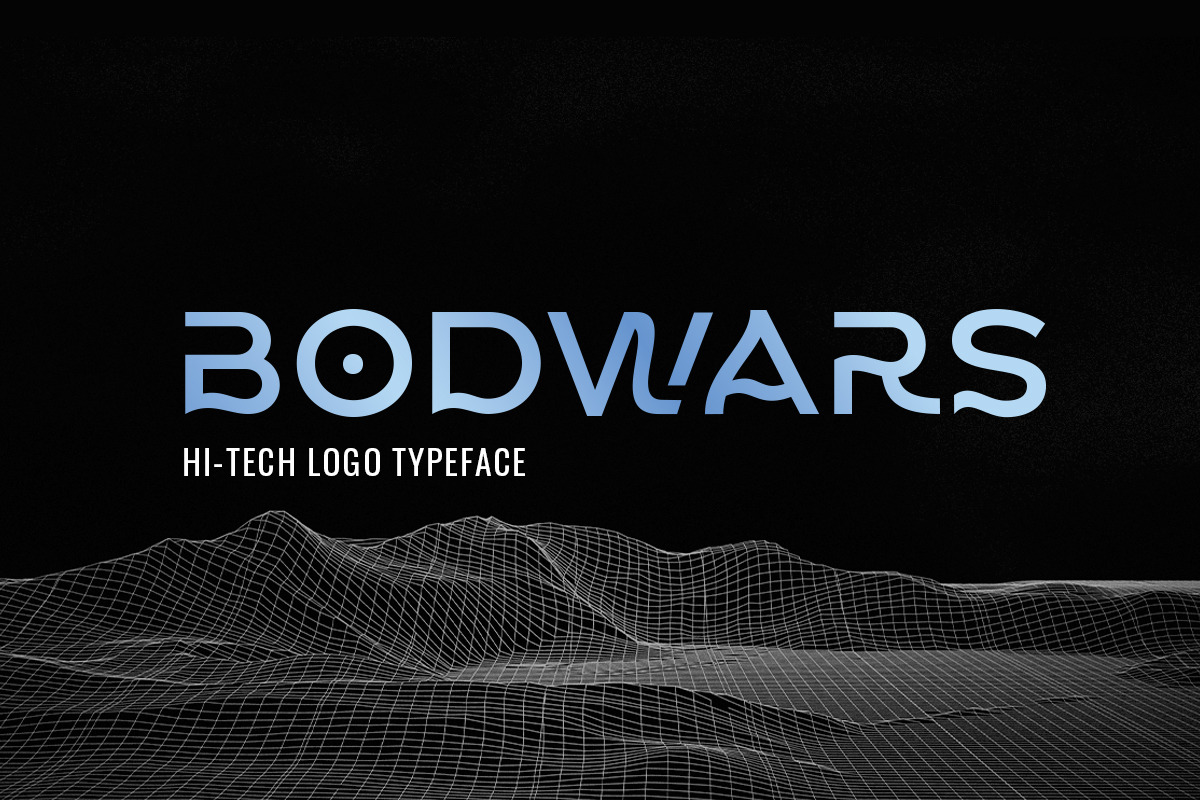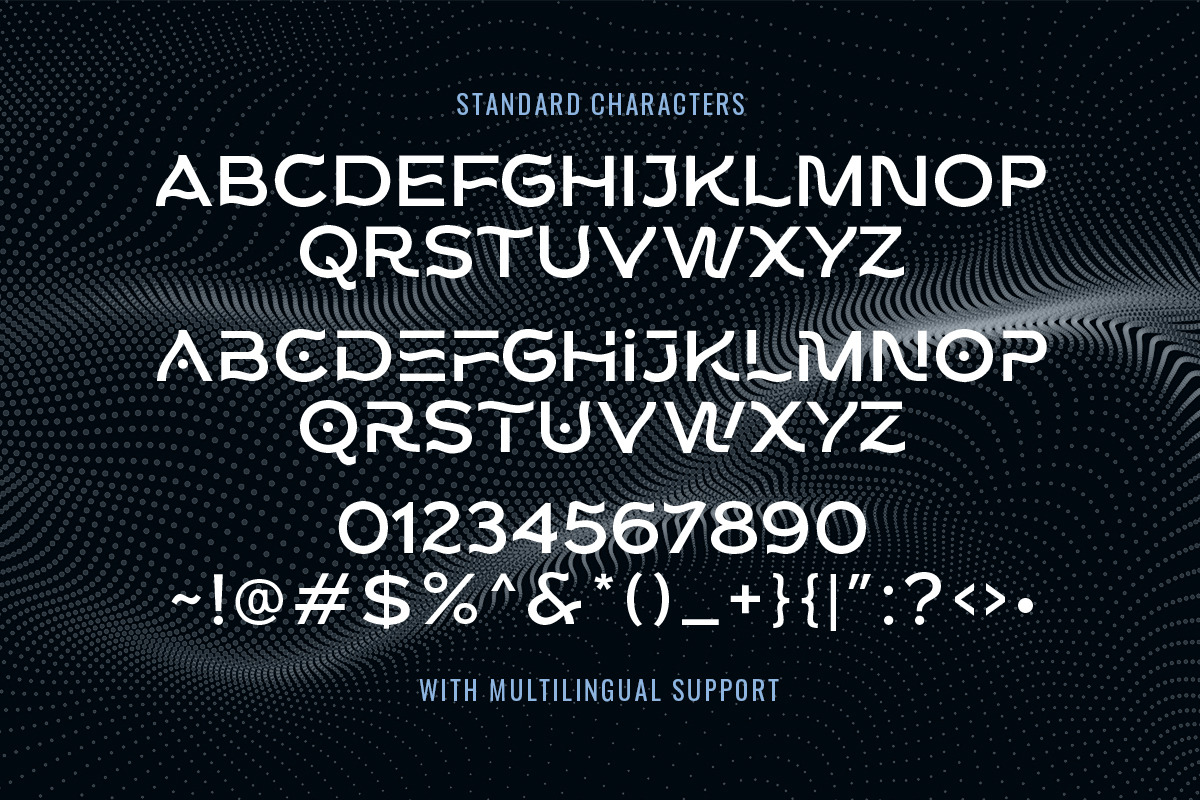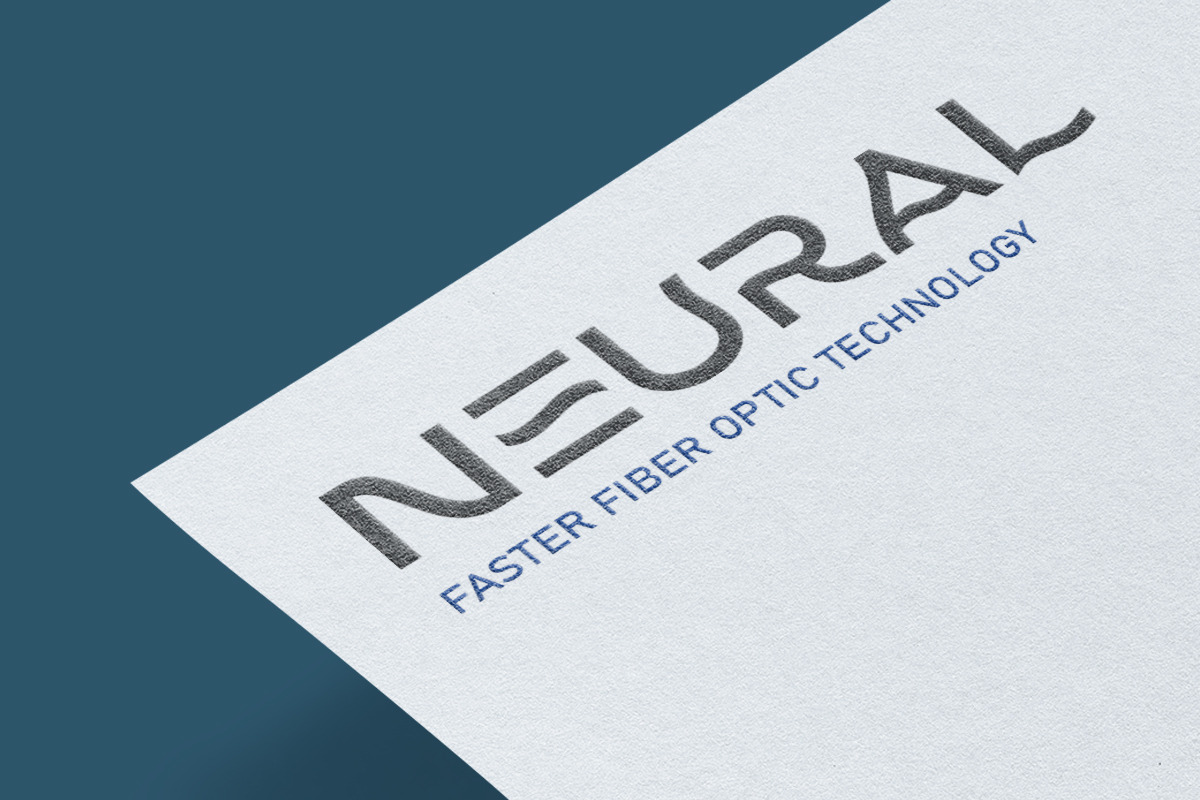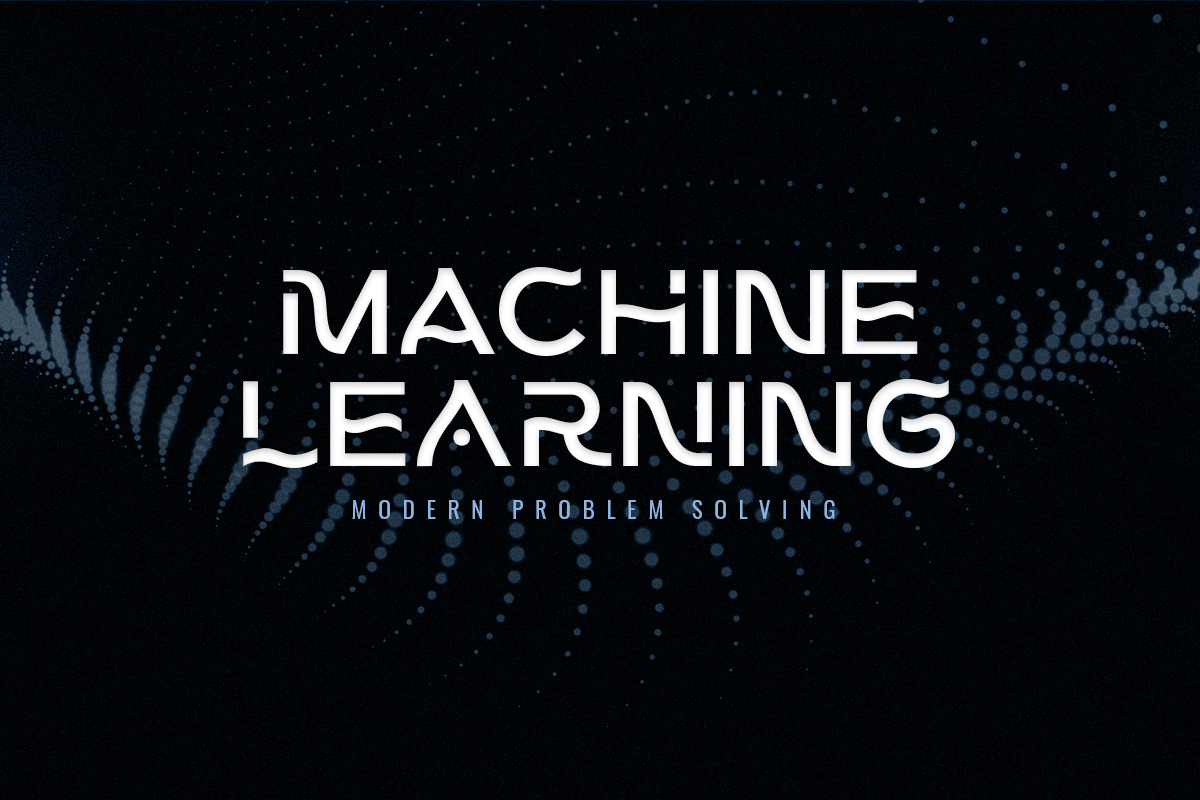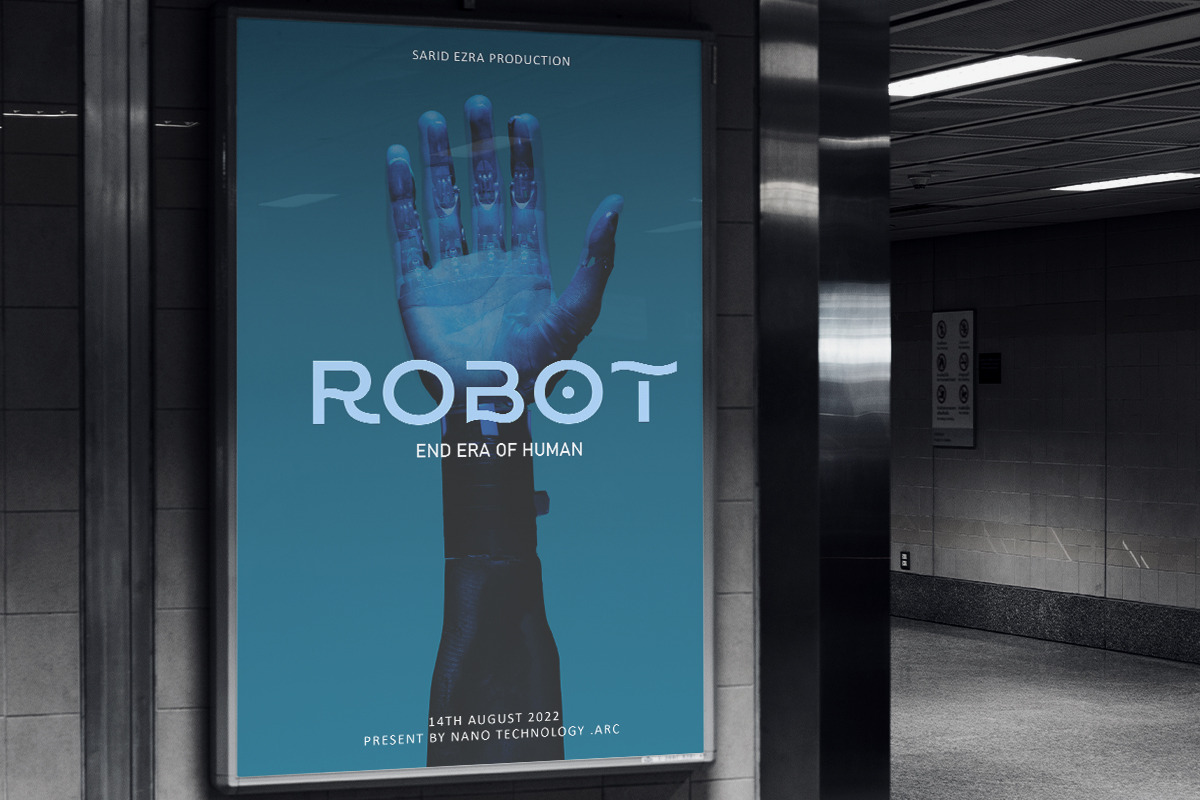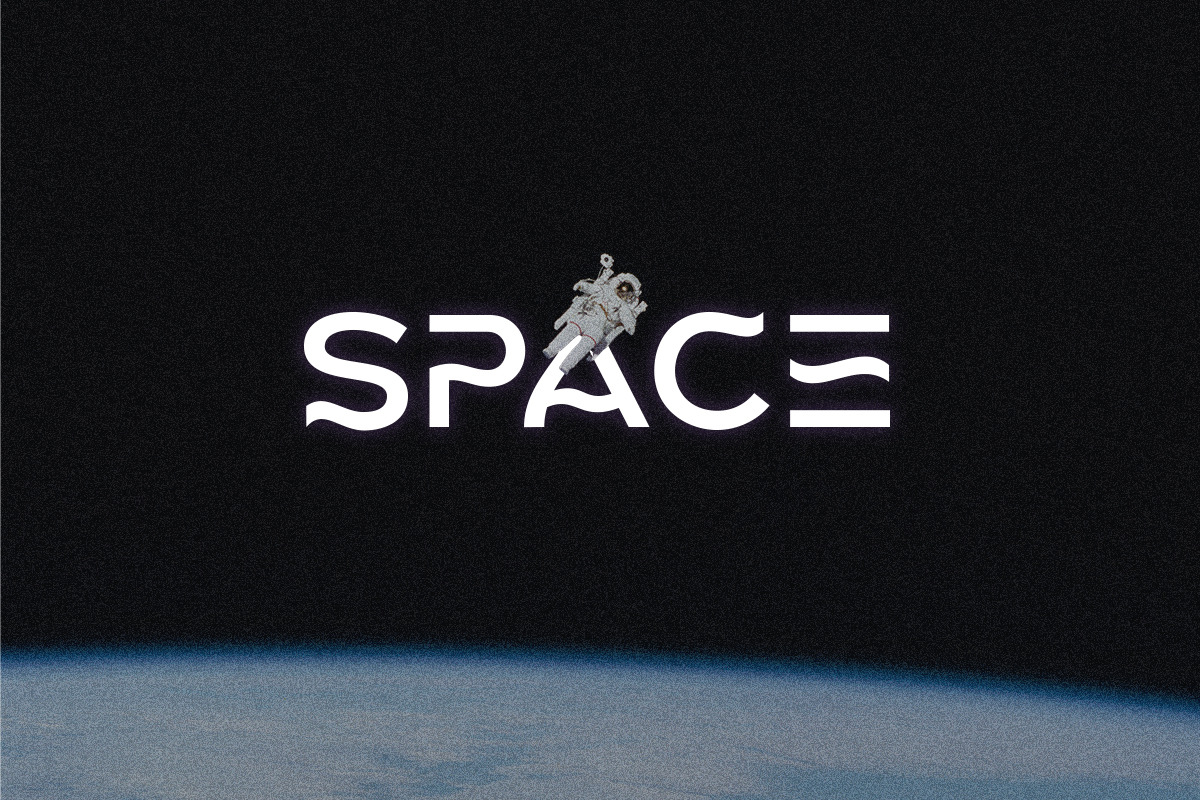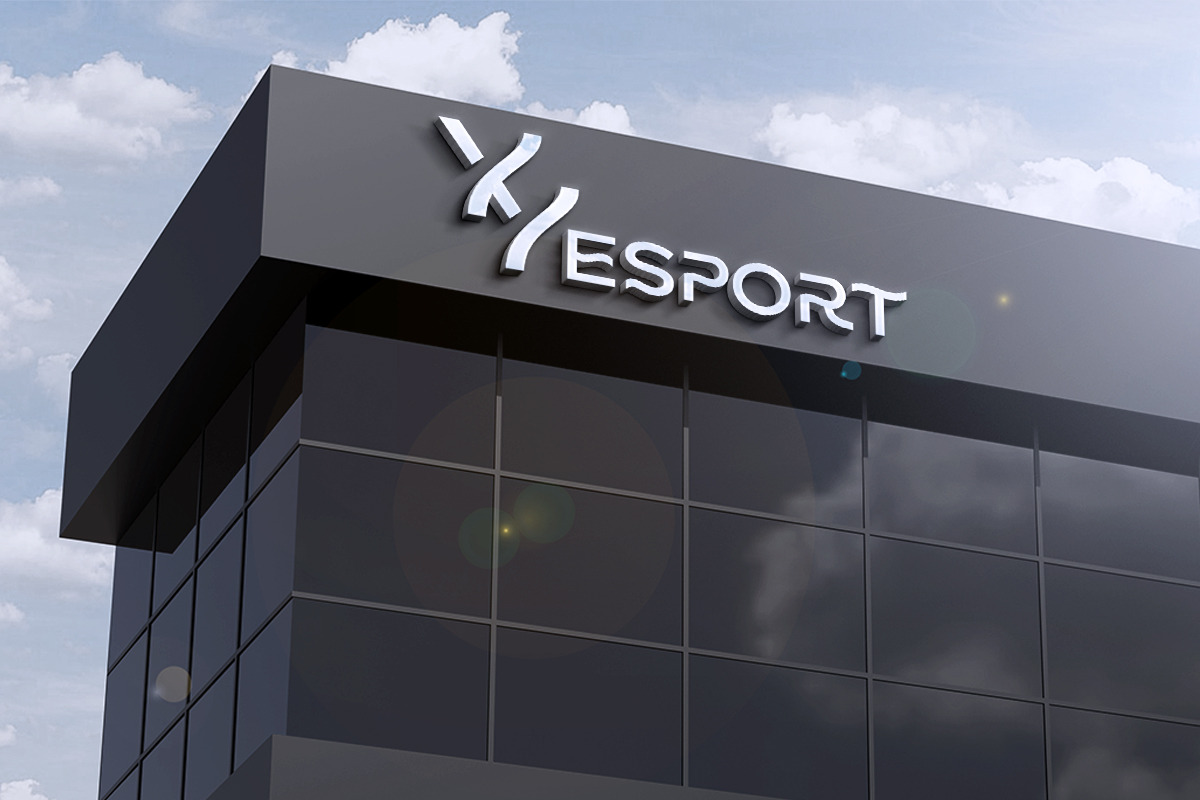
Bodwars - Hi-tech Logo Typeface
Bodwars is a sans based font with unique shape that will make your design looks hi-tech and modern. You can use this font for any purpose, especially to make logotype and sci-fi movie poster. You can mix and match the uppercase and lowercase to make your logo more stand out. This font also support multi language.